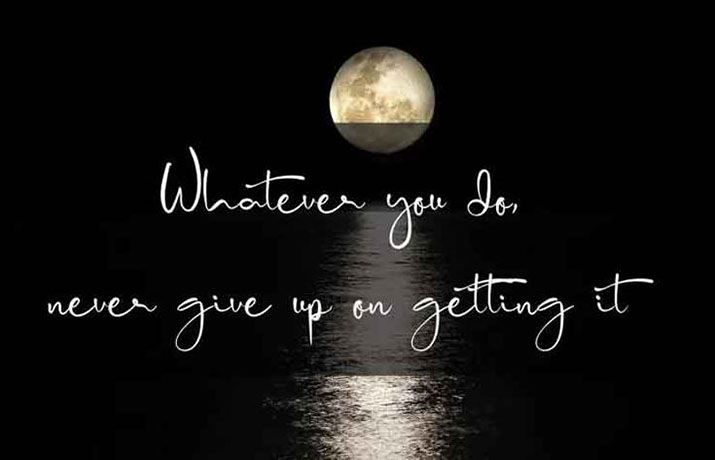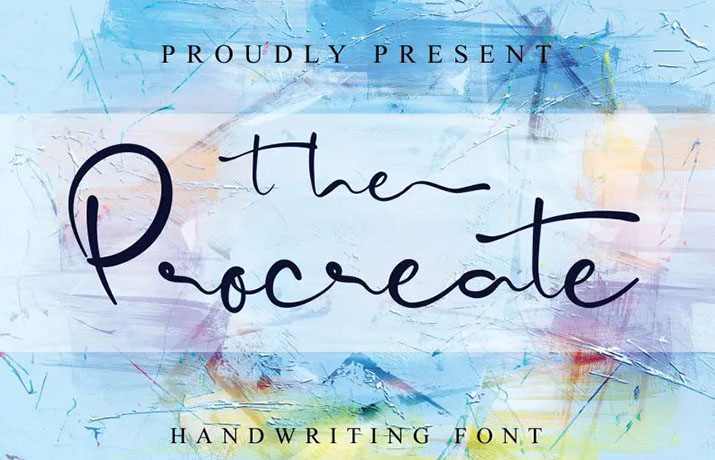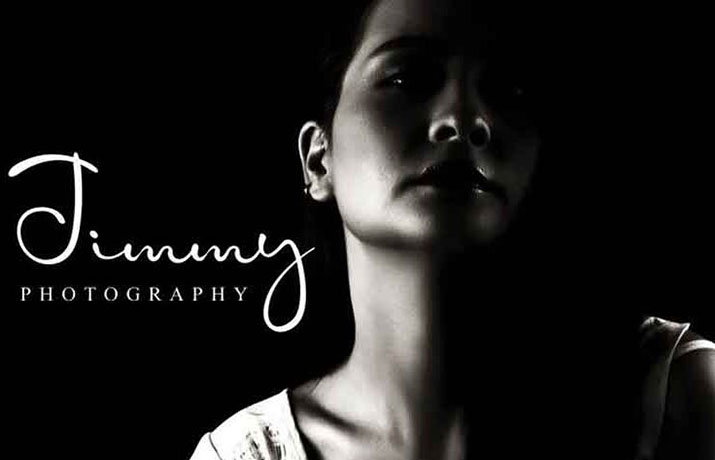
The Procreate Font Download – [Free by Erik Studio]
The Procreate Font Family Free Download
The Procreate Font is a sweet, lovely script typeface that has a curvy handwritten design. It was designed and published by Erik Studio.
This awesome font texture has deeply maintained natural flow. Because each letter is created with a single stroke and the designer has added an italic touch as well.
Its stylish alternates and ligatures make this font the perfect match for any project. You can use it for making wedding invitations, business cards, greeting cards, and labels.
“The Procreate typeface comes in a single style that possesses Open Type features. This style contains 164 glyphs, numbers, symbols, and a few punctuation marks. Moreover, it also supports 62 languages”.
• Use it for any kind of advertising, such as labels, greeting/wedding cards, magazines, books, posters, restaurant menus, letterhead, logos, stationery, packaging, and wedding cards.
• Try it out for branding, invitations, greeting cards, signatures, covers, posters, social media posts, signatures, covers, posters, product designs, product packaging, shopping bags, and more.
This font supports 62 languages.